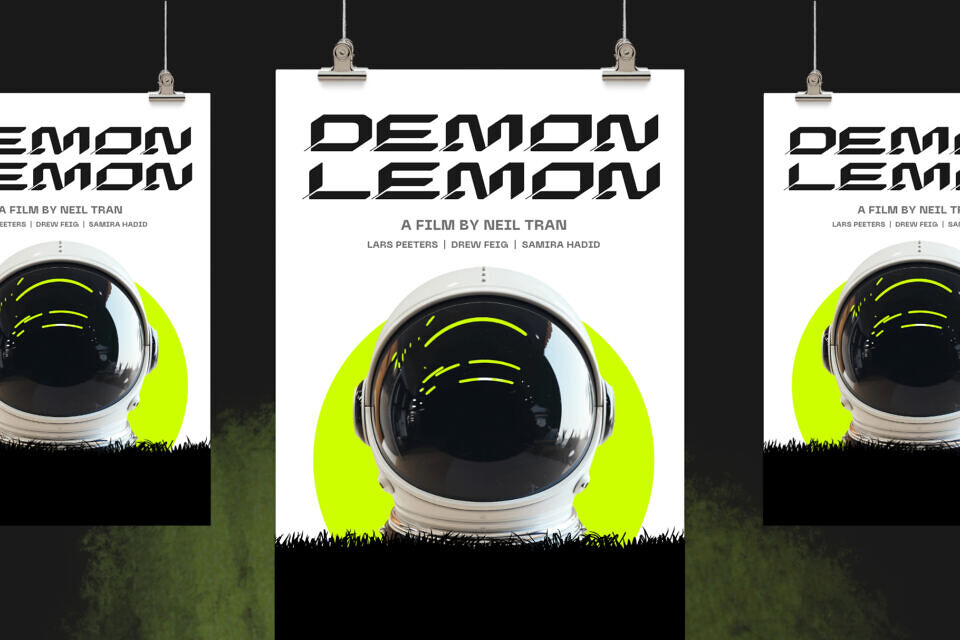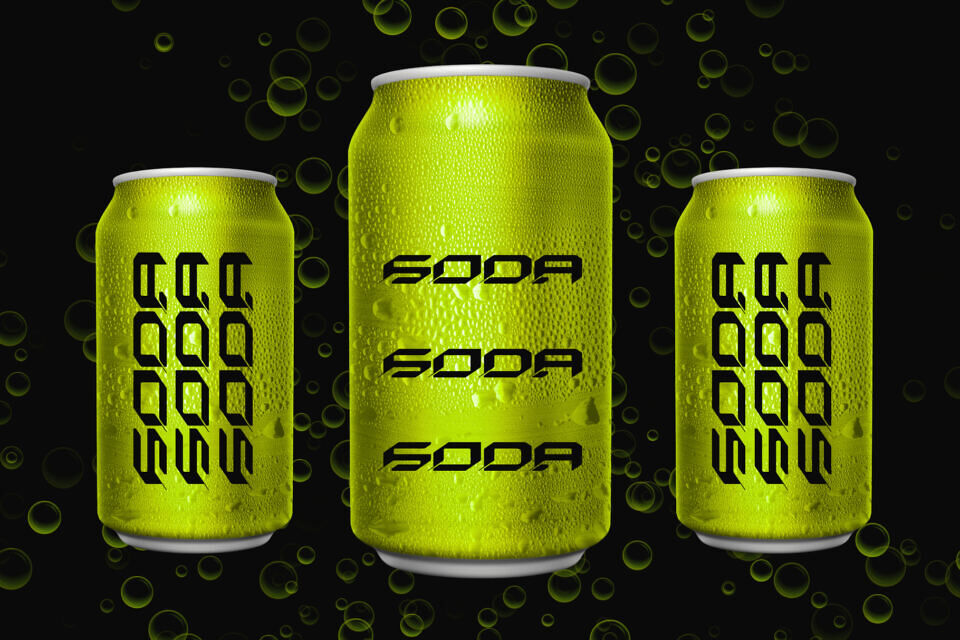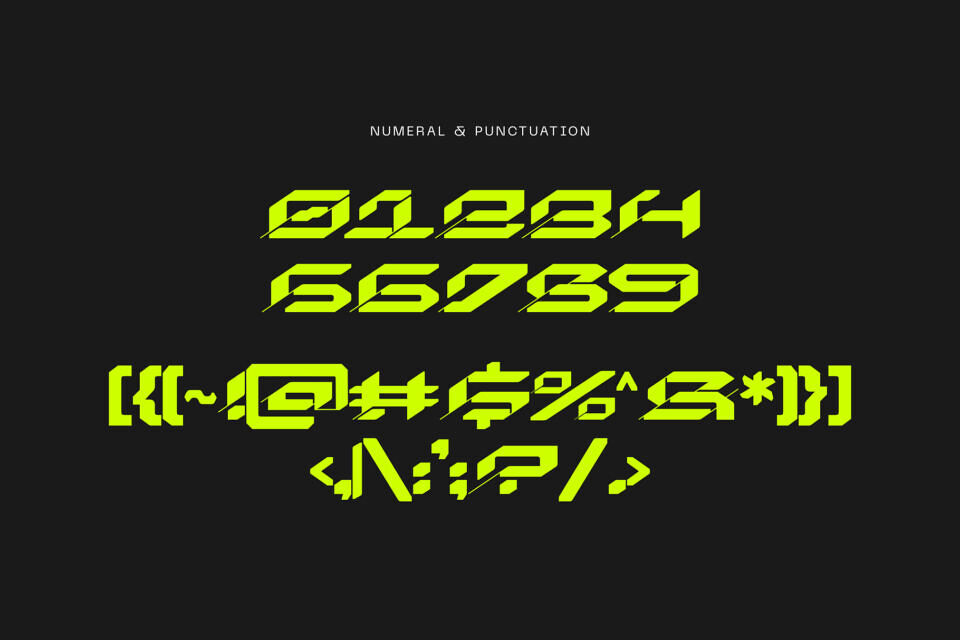
Race Hugo Font
Race Hugo Font is a futuristic, high-octane typeface inspired by speed, racing, and sci-fi aesthetics. With its angular, italicized forms and sharp cut-ins, the font conveys motion and energy, making it perfect for posters, branding, or media related to technology and adrenaline.
Its all-caps design—with unified uppercase and lowercase glyphs—emphasizes boldness, while the neon-inspired color palette adds a cyberpunk flair. Race Hugo includes numbers and a wide range of symbols, all designed with the same aggressive, slanted geometry that suggests velocity and power.